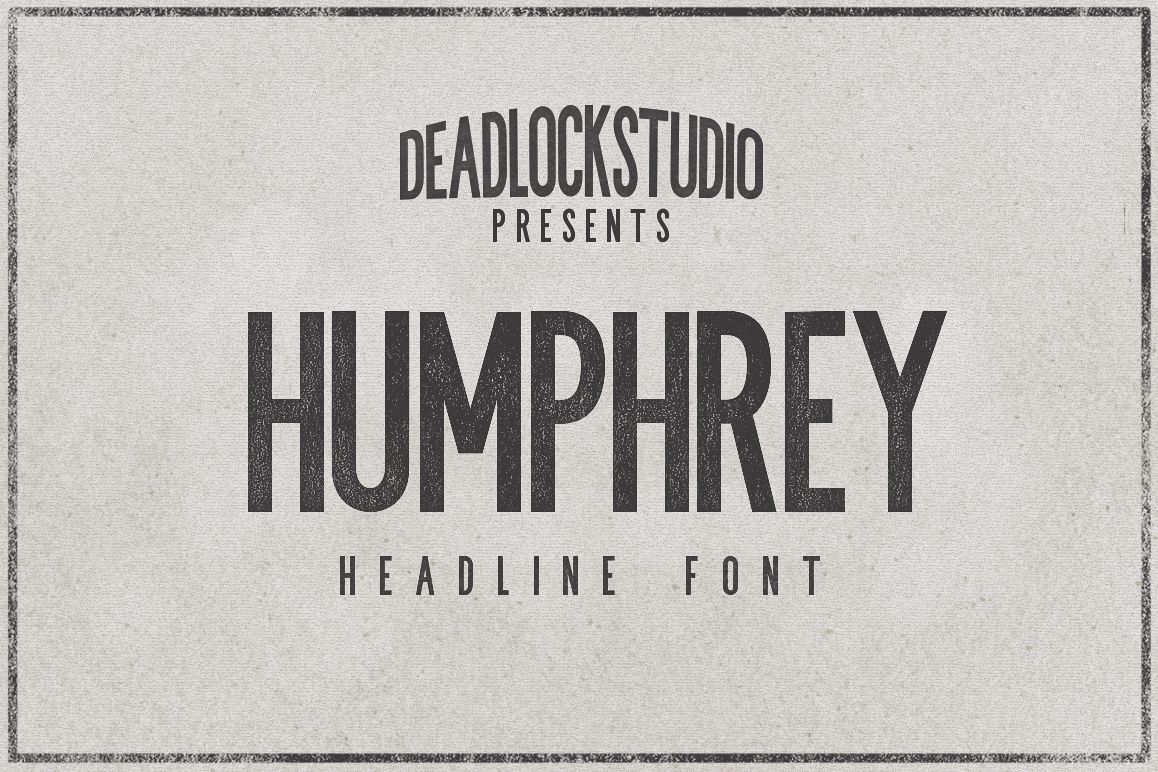
Humphrey is a simple All-Caps font. It was made to create title magazine or poster.
Available with 3 styles ( regular, inline, outline ) with OTF and TTF format.